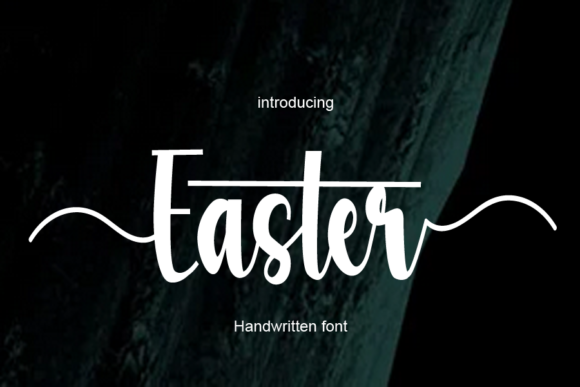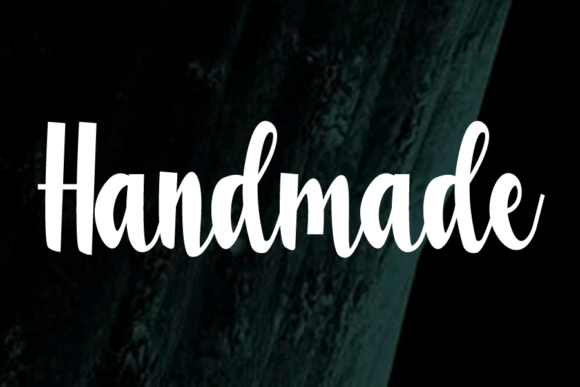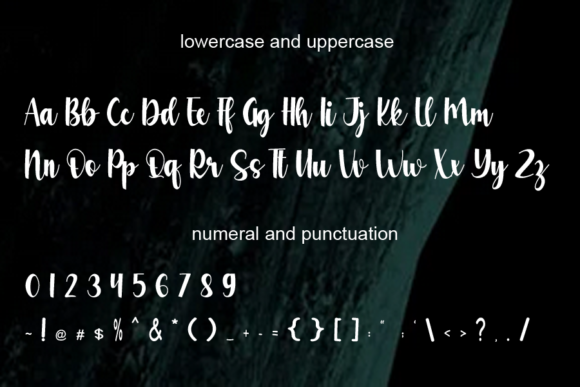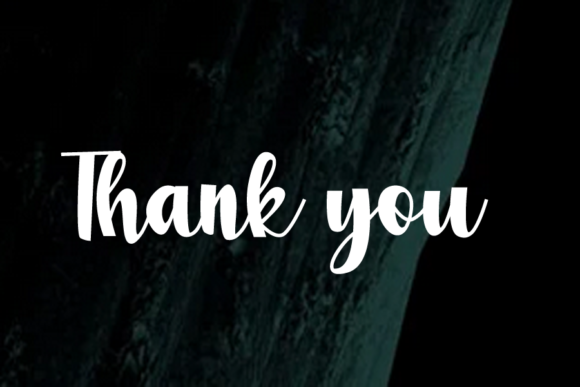
About Easter Font
Easter is a gorgeous handwritten script font with a classic calligraphy style. The smooth font works great on greeting cards, wedding invites, birthday cards, and much more. Add this lovely font to your creations and take your designs to the next level!